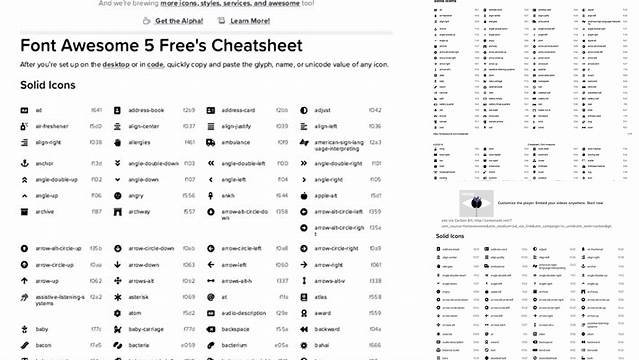
Font Awesome Free Cheatsheet: Your Ultimate Guide
Hey guys! Ever felt lost in the sea of Font Awesome icons? Don't worry, you're not alone. This Font Awesome Free Cheatsheet is here to be your trusty map, guiding you through the vast landscape of these awesome icons. We'll cover everything from the basics to more advanced tips, making sure you become a Font Awesome pro in no time. Let's dive in!
What is Font Awesome and Why Should You Use It?
Before we get into the Font Awesome Free Cheatsheet details, let's quickly chat about what Font Awesome actually is. Simply put, Font Awesome is a massive library of scalable vector icons that you can use on your website, app, or any other project. Why should you use it? Well, for starters, icons add visual flair and help users navigate your site more easily. But more importantly, Font Awesome icons are vectors, meaning they look crisp and clear at any size. No more pixelated icons! Plus, the Font Awesome Free version gives you a ton of options to get started, and it's super easy to implement. So, if you're not already using Font Awesome, you're missing out!
Font Awesome Free Cheatsheet: Basic Icons
This is where the Font Awesome Free Cheatsheet comes in handy. The free version of Font Awesome includes hundreds of icons, covering everything from basic UI elements to social media logos. To use an icon, you simply add an <i>
tag with the appropriate class name. For example, to display a home icon, you'd use <i class="fas fa-home"></i>
. The fas
class indicates that it's a solid style icon (one of the free styles), and fa-home
is the specific icon name. Don't worry, you don't have to memorize all these names! The cheatsheet will help you find the right icon quickly.
Font Awesome Free Cheatsheet: Regular Icons
Besides the solid style, the Font Awesome Free Cheatsheet also covers regular style icons. These icons have a more outlined appearance. To use a regular icon, you'll use the far
class instead of fas
. For instance, the regular version of the heart icon would be <i class="far fa-heart"></i>
. It's essential to remember the correct class prefix (fas
or far
) to ensure your icons display correctly. The cheatsheet will clearly indicate which style each icon belongs to, making it a breeze to choose the right one.
Font Awesome Free Cheatsheet: Brand Icons
Need to display a social media icon? The Font Awesome Free Cheatsheet has you covered! Font Awesome includes a set of brand icons, perfect for linking to your social profiles. These icons use the fab
class prefix. For example, the Facebook icon is <i class="fab fa-facebook"></i>
. These brand icons can add a professional touch to your website and help users connect with you on their favorite platforms. Just remember to use the fab
prefix for these!
Sizing and Styling Font Awesome Icons
One of the great things about Font Awesome icons is that they are scalable. This means you can easily change their size using standard CSS font-size properties. Want a bigger icon? Just increase the font-size! You can also apply other CSS styles, such as color, to customize the appearance of your icons. The Font Awesome Free Cheatsheet doesn't just show you which icons to use, but also how to make them look fantastic. Play around with different sizes and colors to find the perfect look for your project.
Using Font Awesome with Text
Font Awesome icons can be used alongside text to create more visually appealing and informative content. For example, you might use an envelope icon next to an email address or a phone icon next to a phone number. The Font Awesome Free Cheatsheet will inspire you with ideas on how to combine icons and text effectively. To ensure proper alignment, you might need to adjust the vertical alignment of the icon using CSS. A little bit of tweaking can go a long way in making your content look polished and professional.
Font Awesome Free Cheatsheet: Advanced Techniques
Ready to take your Font Awesome game to the next level? The Font Awesome Free Cheatsheet also touches on some advanced techniques. You can stack icons, rotate them, flip them, and even animate them! Stacking icons allows you to combine multiple icons to create new ones. For example, you could layer a plus icon on top of a circle icon to create a custom add button. Rotation and flipping can add visual interest, while animations can make your icons more dynamic and engaging. These advanced techniques can really make your website stand out.
Conclusion: Mastering Font Awesome with Your Cheatsheet
So there you have it! Your ultimate guide to mastering Font Awesome with the Font Awesome Free Cheatsheet. By now, you should have a solid understanding of what Font Awesome is, how to use it, and how to make the most of its features. Remember to keep this cheatsheet handy as you continue to explore the world of Font Awesome. Happy icon-ing, guys!